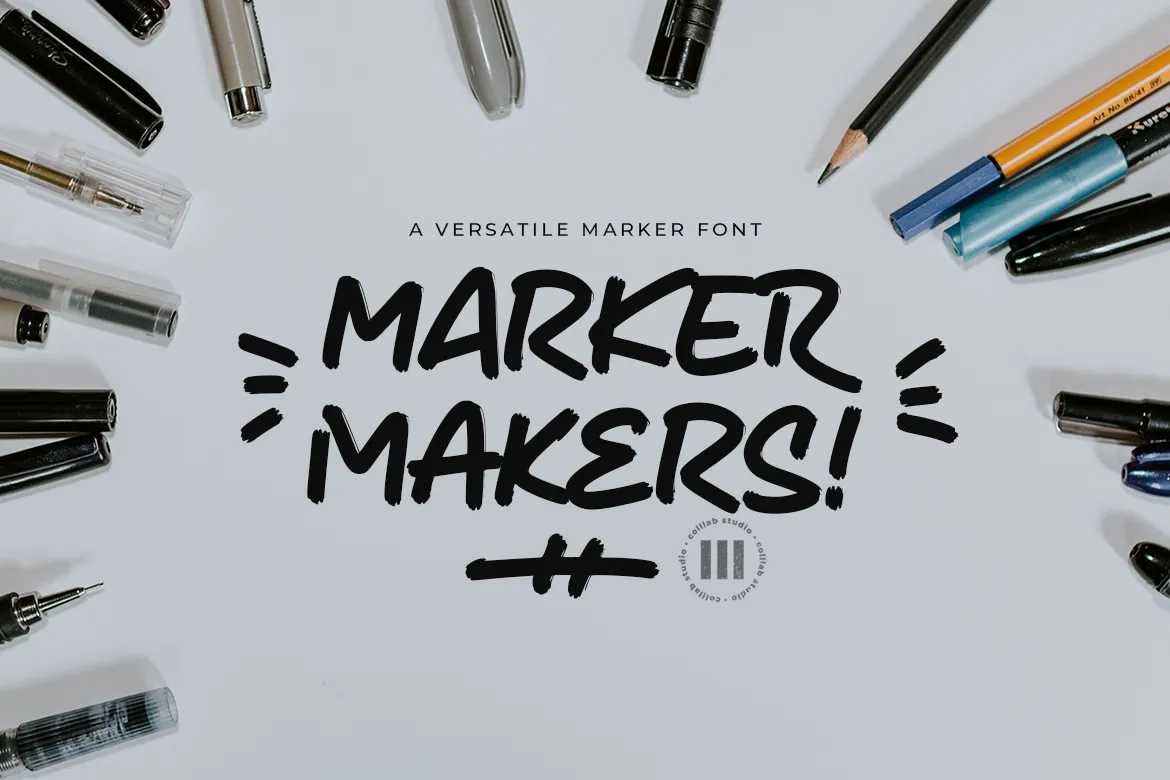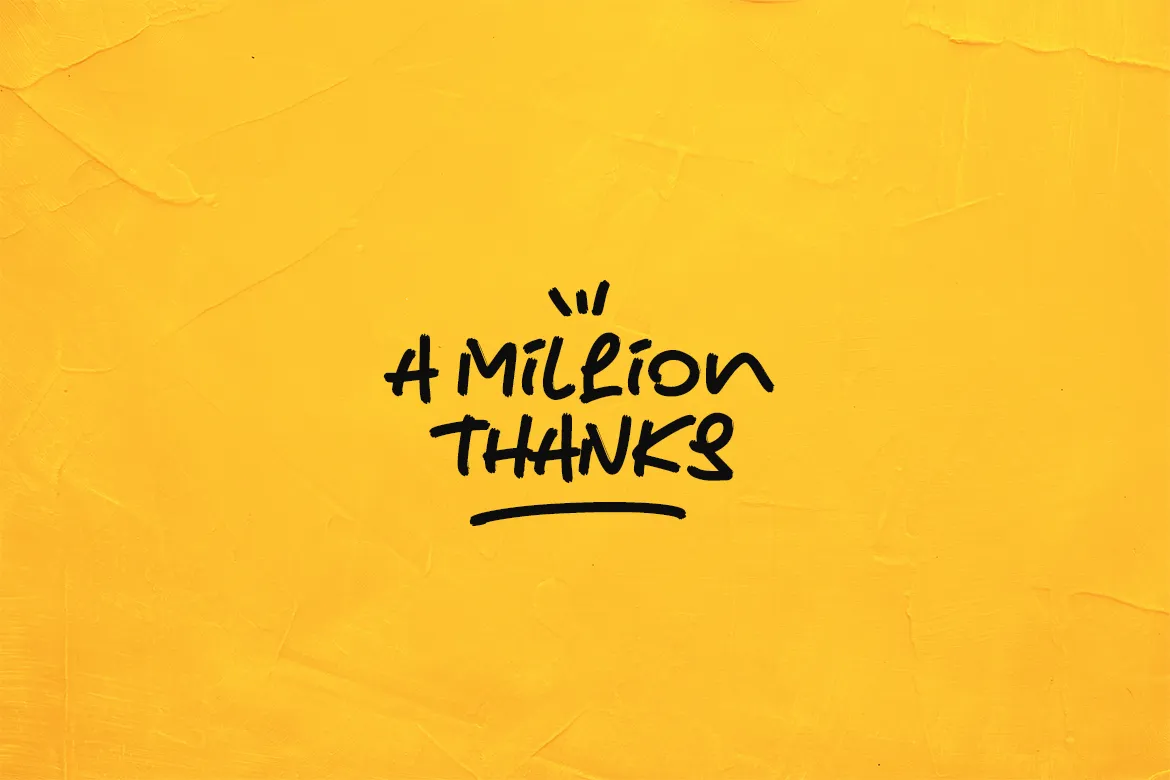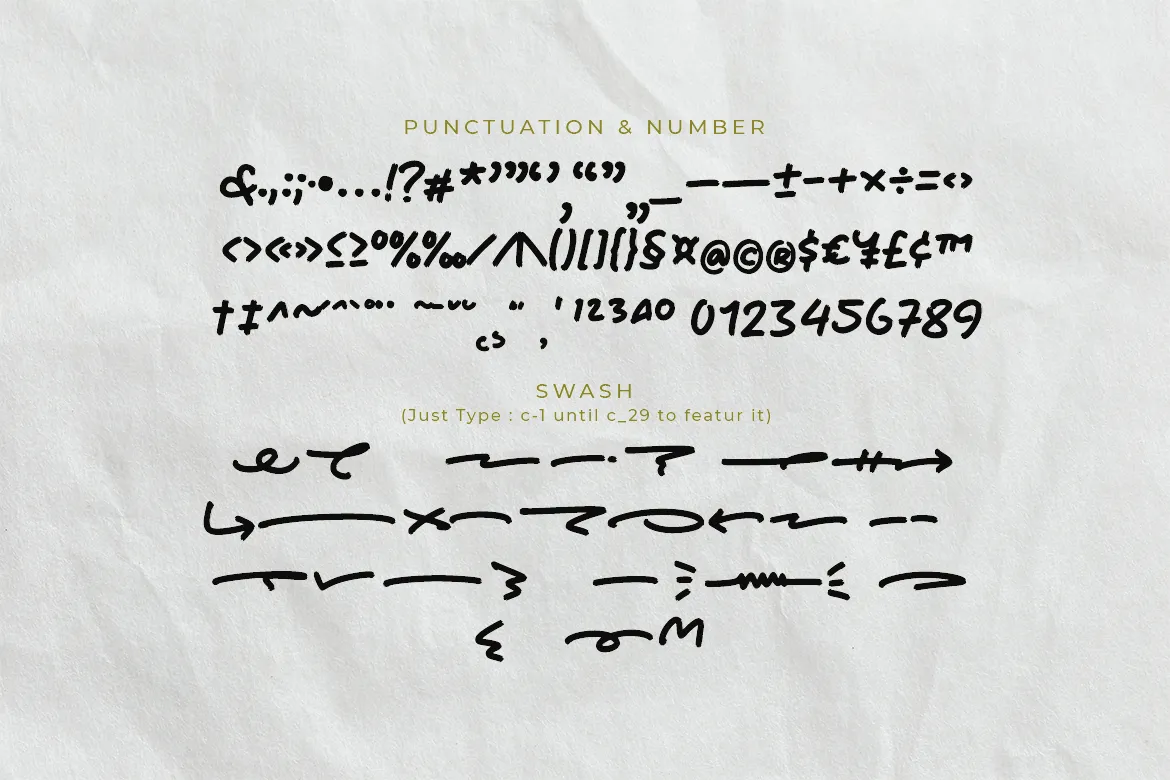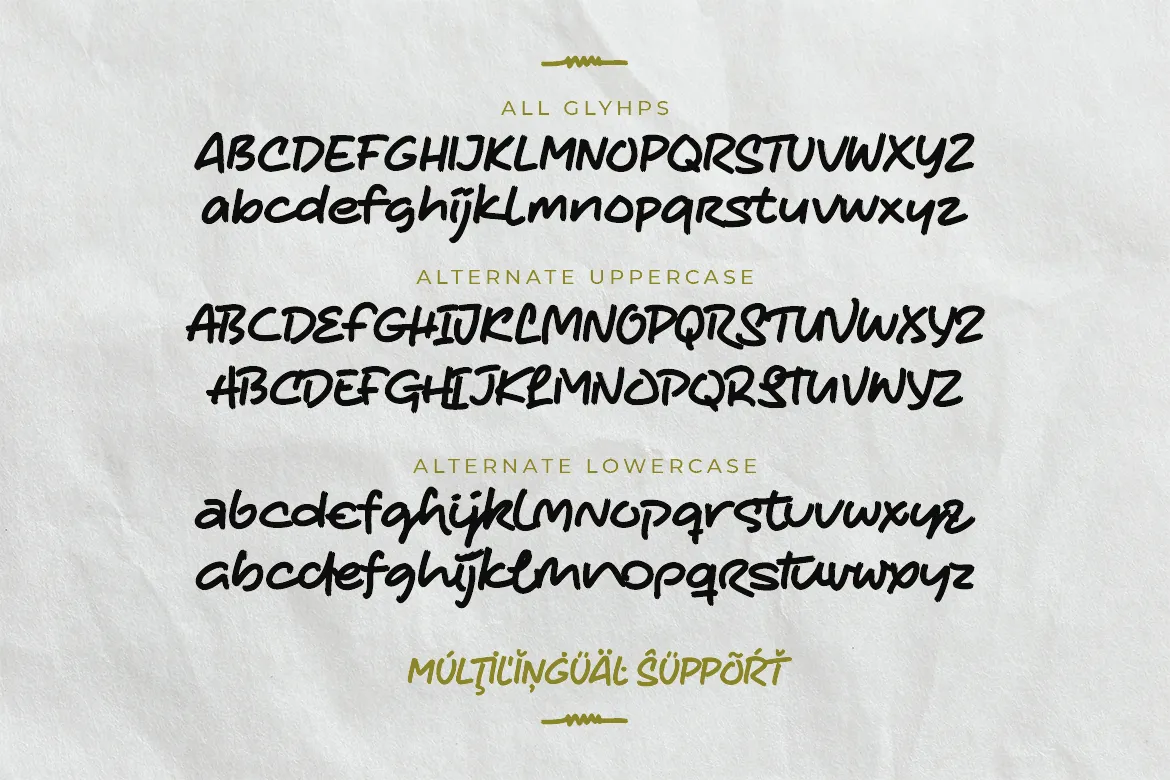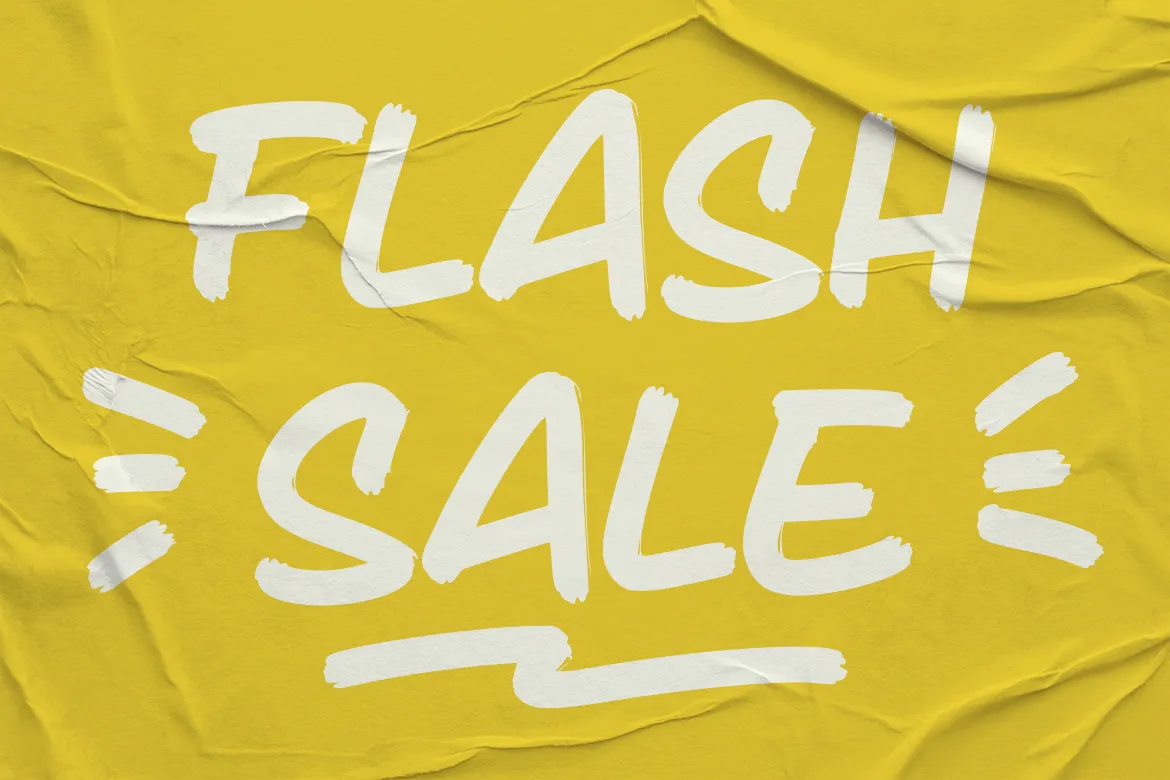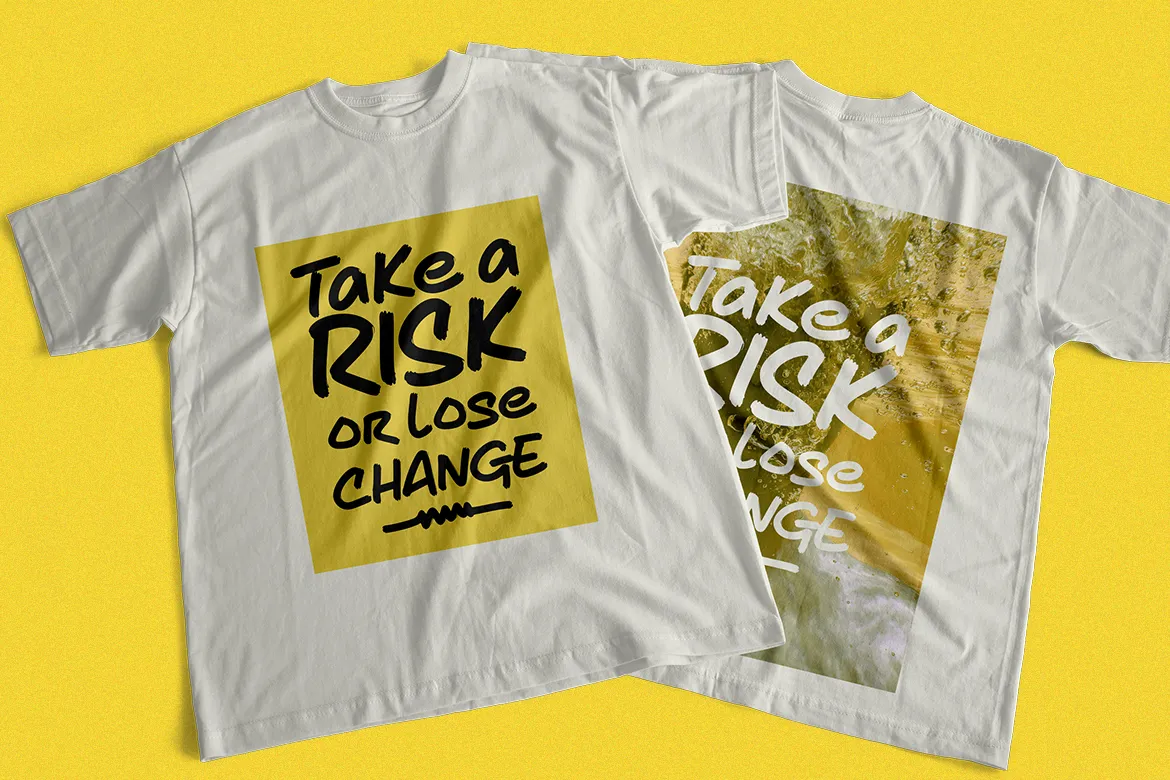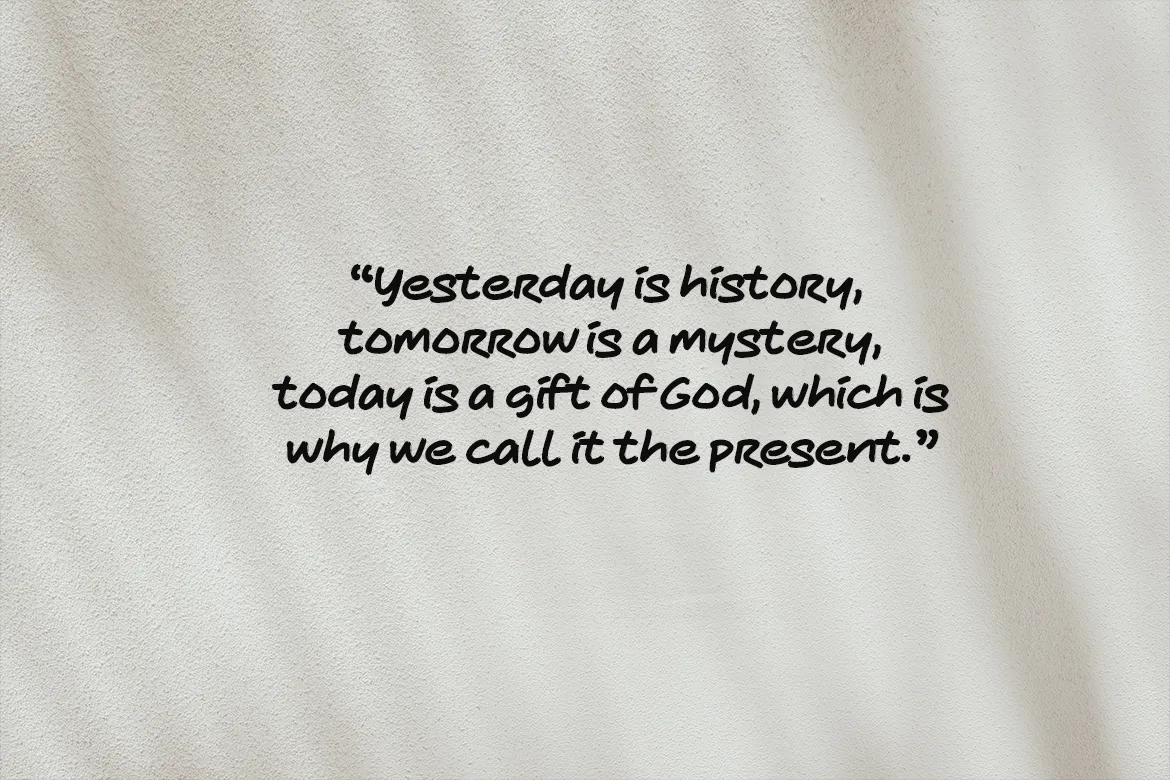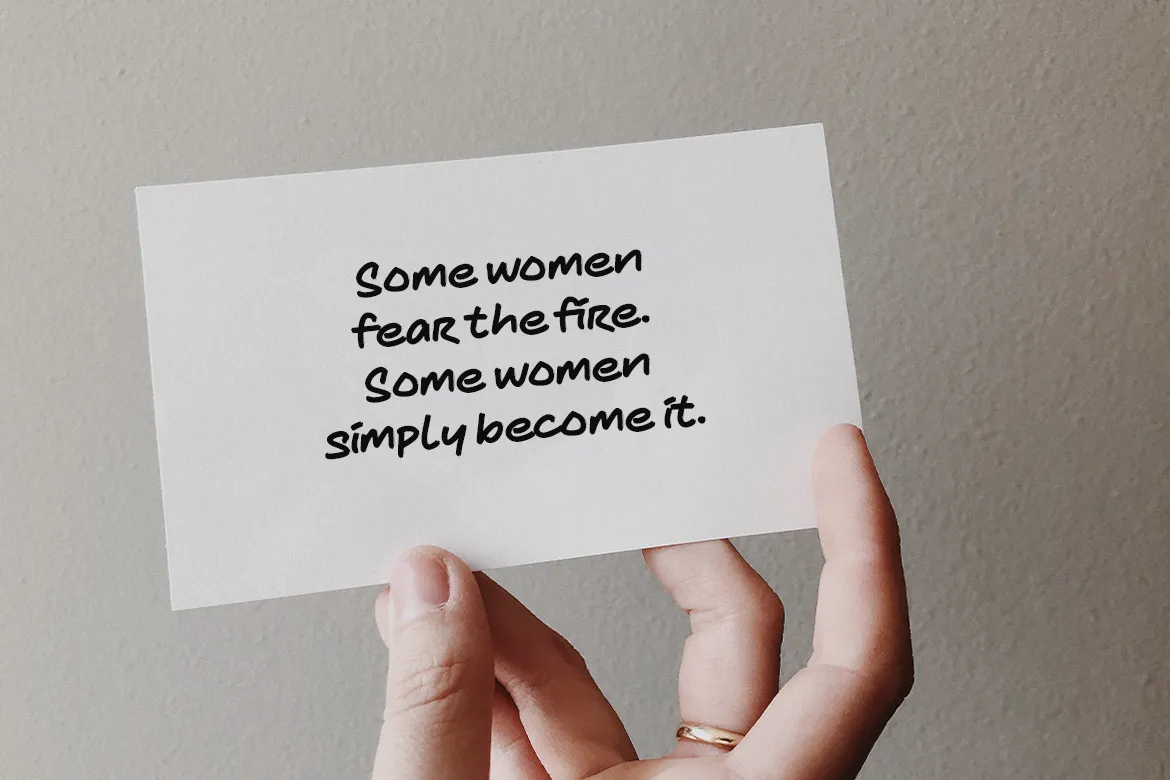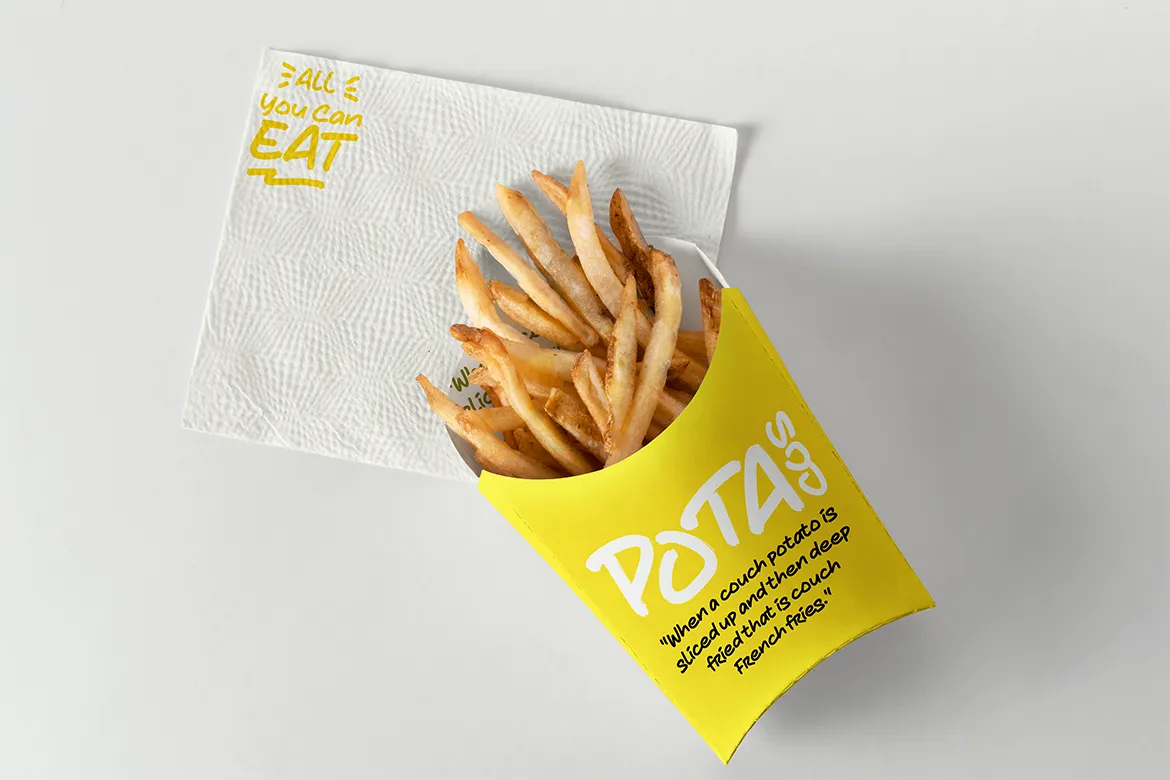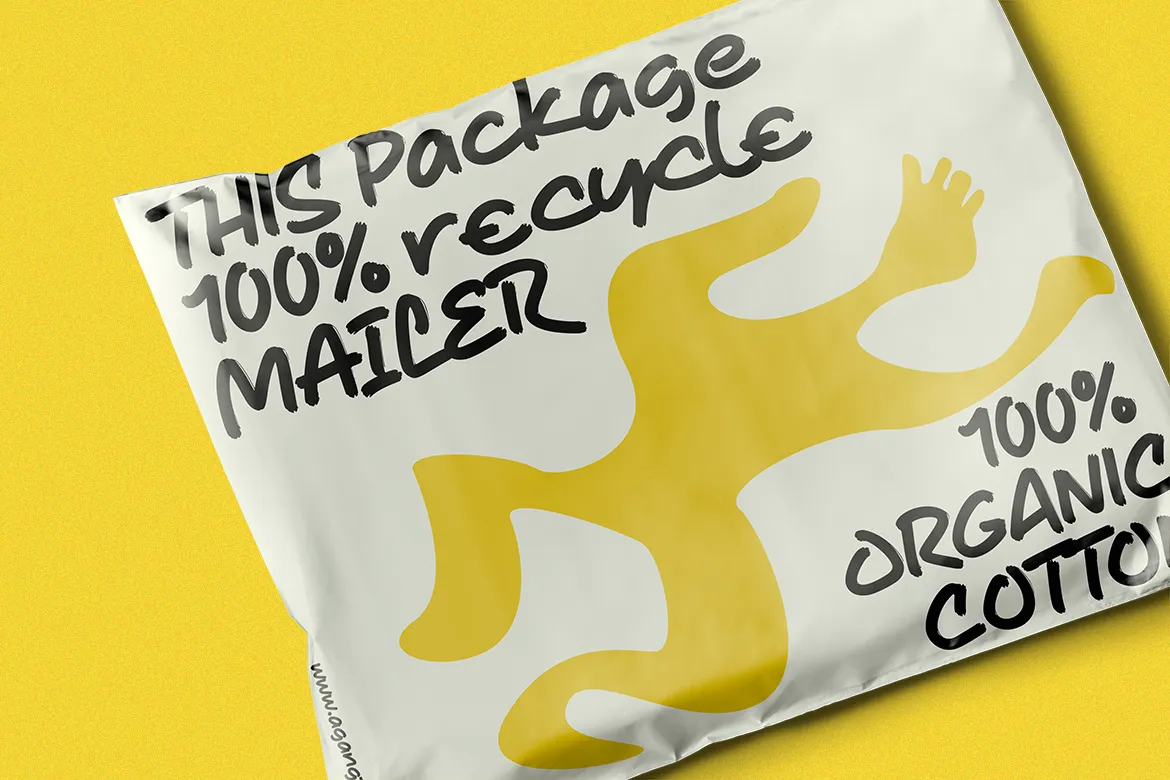
Introducing, Marker Makers is a versatile marker font that takes inspiration from the boldness of graffiti and the playfulness of primary colors. It’s a joy to use for any design project where you want your audience to pay attention, this is your go-to font and take your next project from good to WOW!
Marker Makers comes with more than 400 glyphs, including punctuation, numbers and upper and lower-case letters you’ll have all the tools you need to create invigoratingly unique content. Whether it’s included on posters at trade shows or on the walls of any room in your office, no one will ever think it was boring!